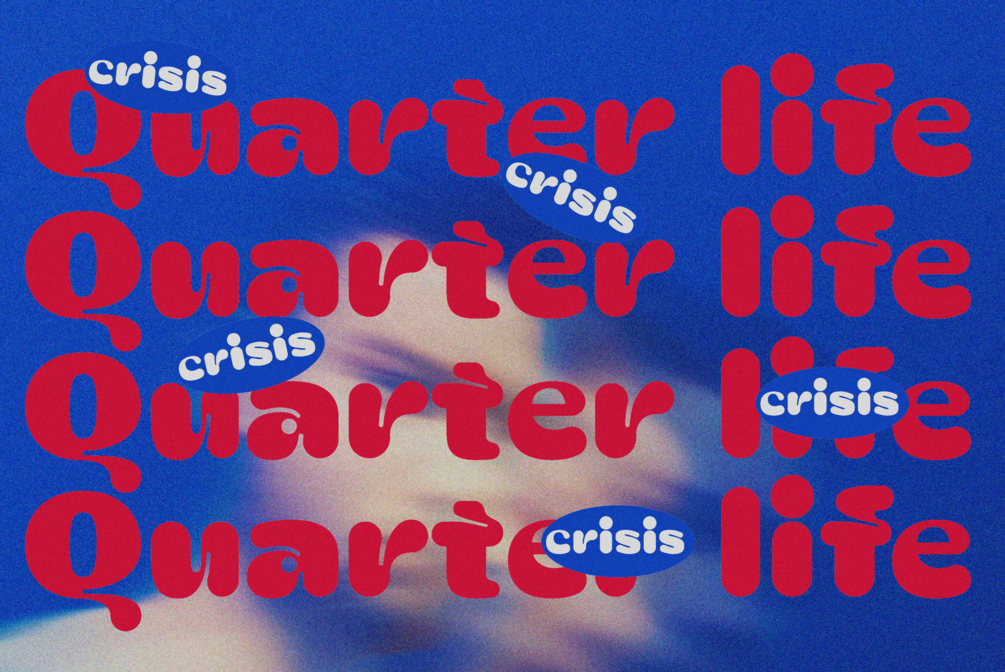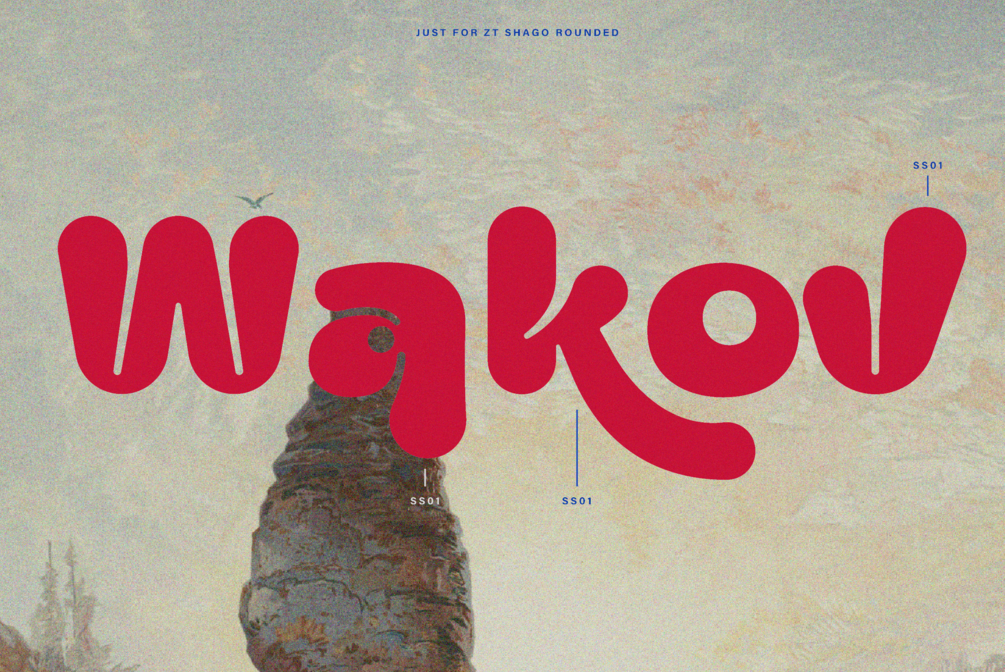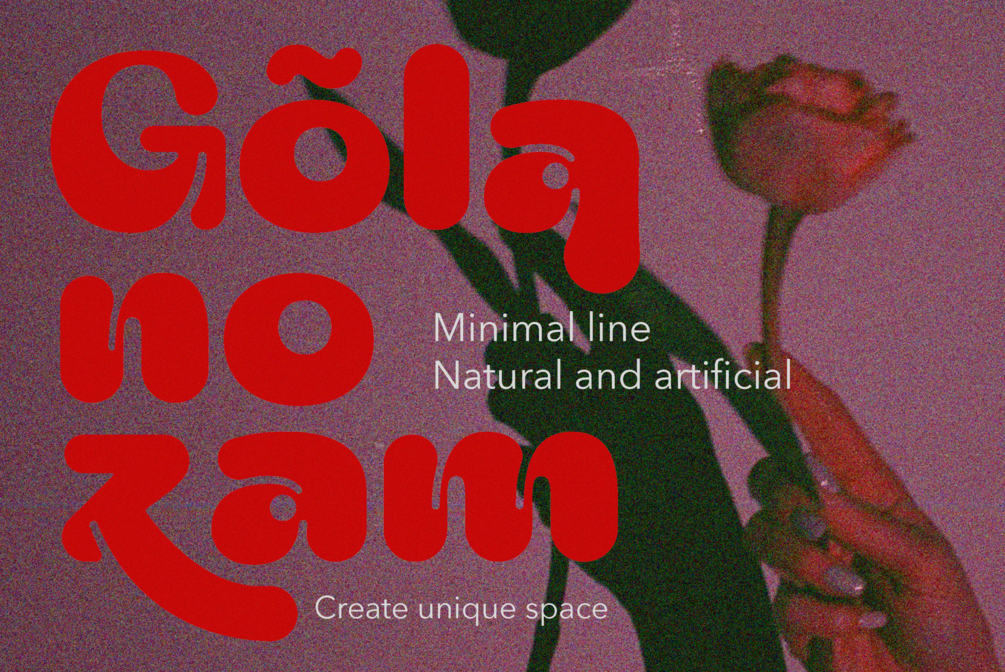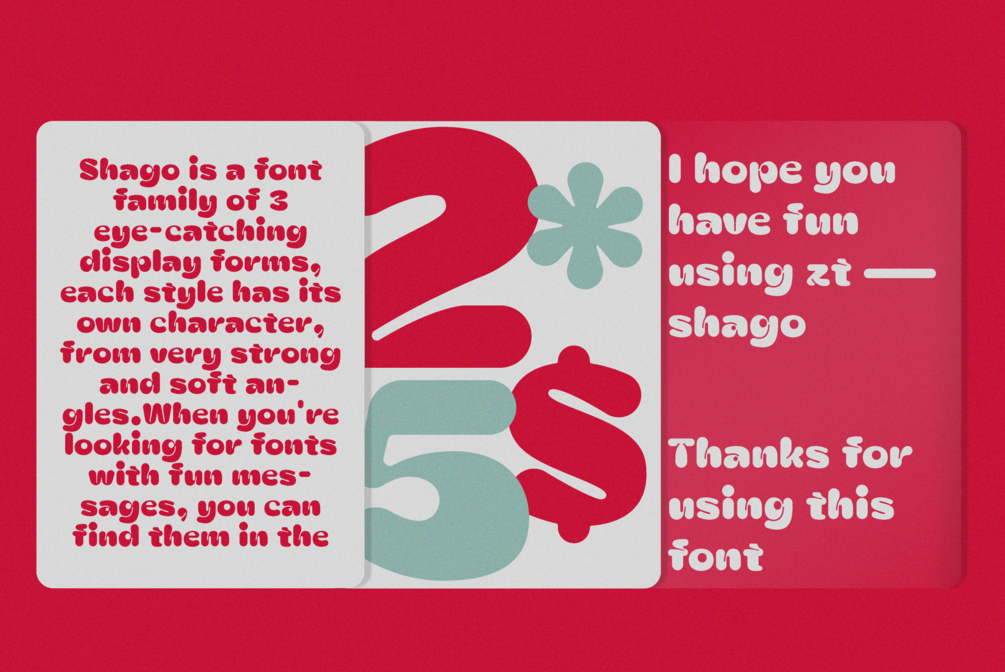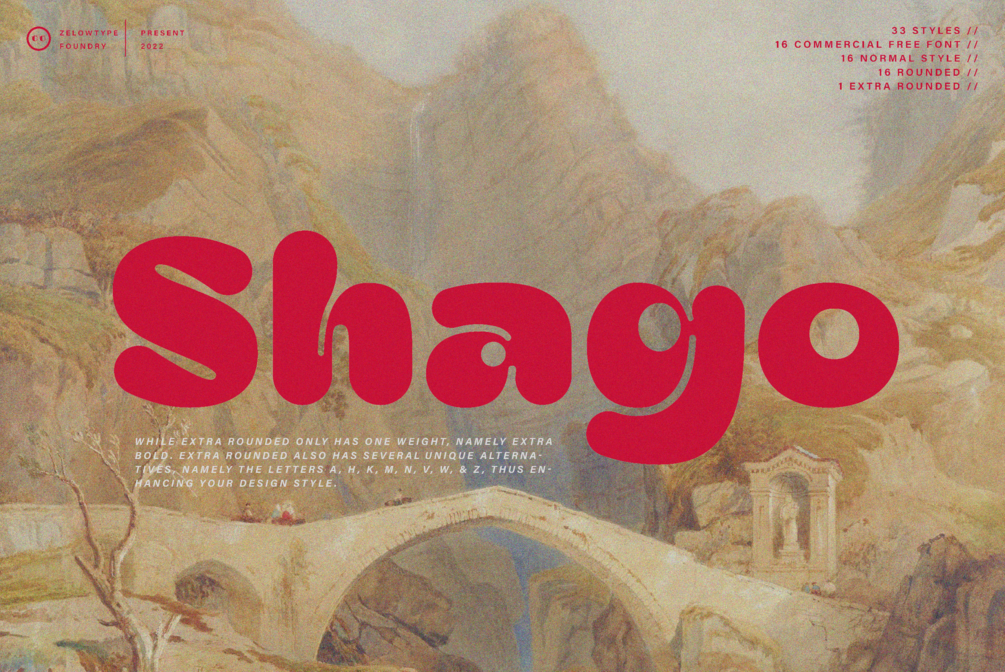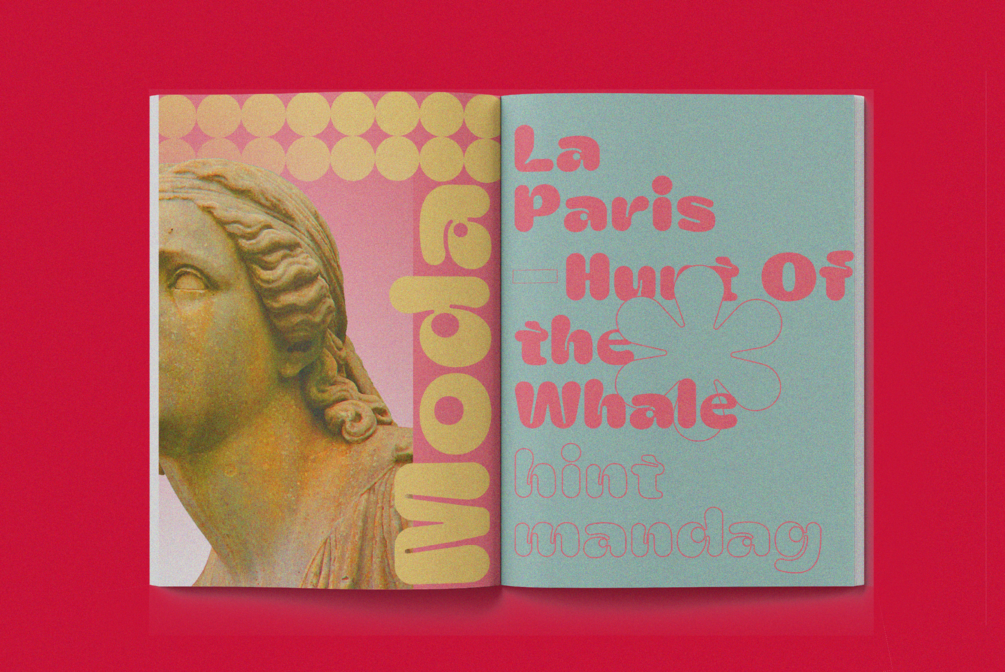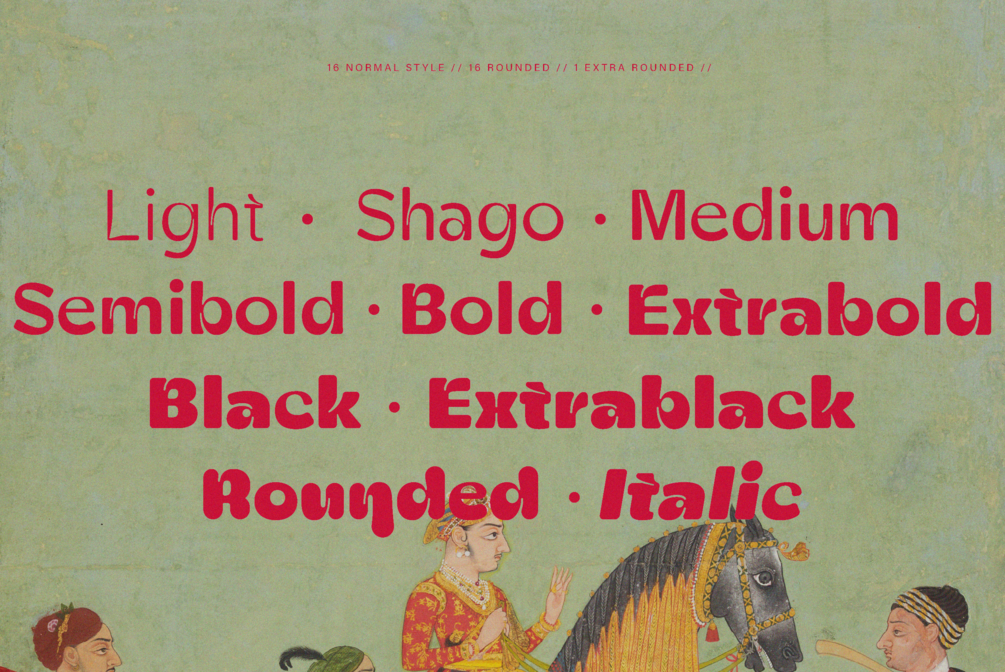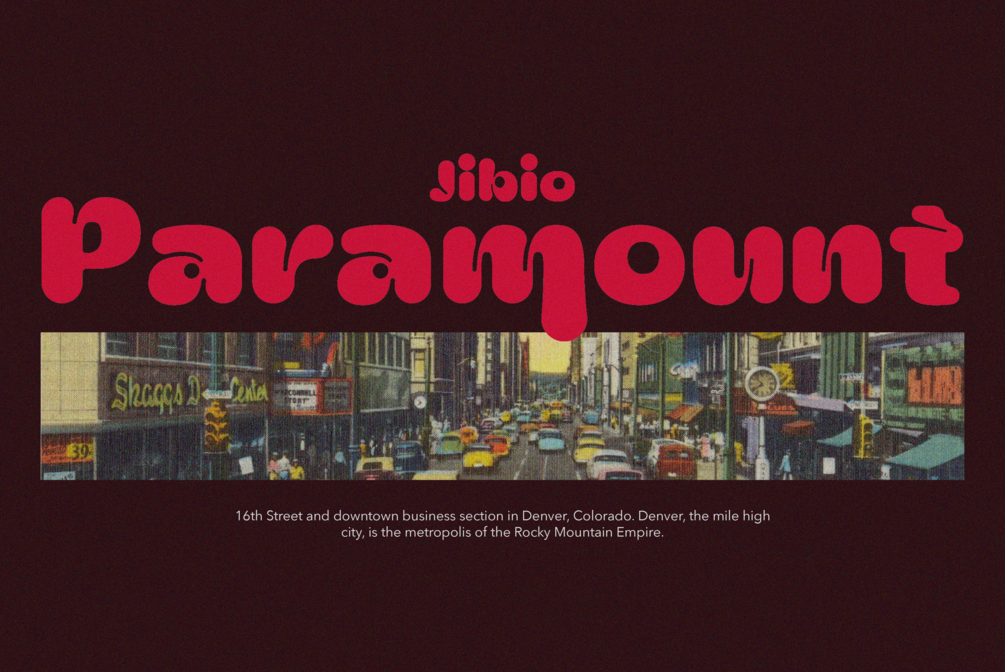
ZT Shago
ZT Shago is a meticulously crafted font family that includes 3 distinct display forms, each imbued with its own unique character. From strong, angular strokes to soft, rounded curves, ZT Shago offers a versatile range of styles suitable for various design needs. If you’re seeking fonts that convey fun and engaging messages, the ZT Shago family has you covered.
ZT Shago font family is featuring a total of 33 styles, including 16 free font styles. The default and round styles are available in both regular and italic versions, providing a wide array of options for your typographic projects.
The Extra Rounded style stands out with its single weight, Extra Bold, and includes unique alternative characters for the letters a, h, k, m, n, v, w, and z. These alternatives add a distinctive flair to your designs, allowing for enhanced creativity and personalization.